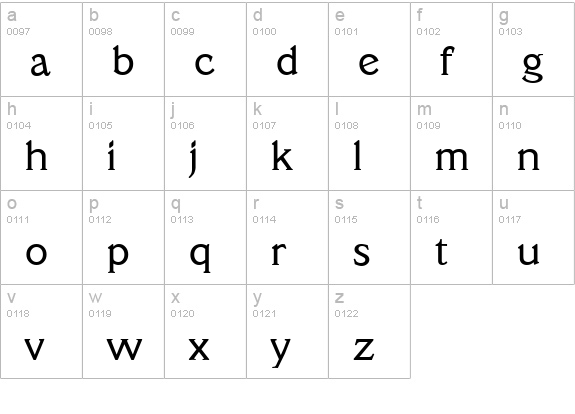
VeracruzSerial-Regular is the standard, neutral variant in the VeracruzSerial typeface family \xE2\x80\x94 well suited to general body text, paragraphs, and standard typographic work.
VeracruzSerial-Regular is a beautifully crafted font that exudes elegance and sophistication. Its clean lines and balanced proportions make it perfect for a wide range of design projects, from branding to editorial design. The classic yet modern aesthetic of VeracruzSerial-Regular ensures that it will stand the test of time and remain a versatile choice for any designer. What's even better is that VeracruzSerial-Regular is completely free to download at FontsMarket.com. This means that you can enhance your projects with this stunning font without any cost. Don't miss out on the opportunity to add VeracruzSerial-Regular to your font library today and elevate your designs with its timeless appeal.